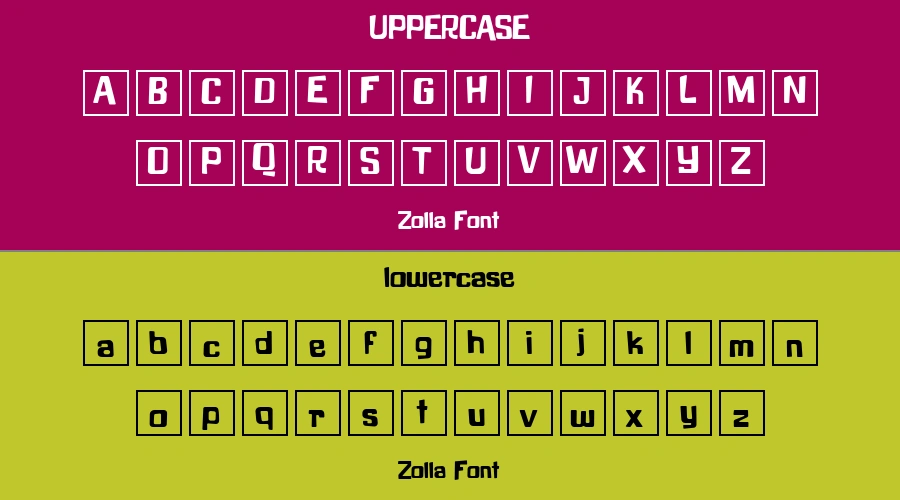
About Zolla Font
When typographic excellence matters most, Zolla Font delivers through its thoughtful blend of precise joints and professionalism. Specially crafted for advertising headers, it offers the functionality and visual authority required for sophisticated design work. Every detail serves a purpose.
The character set showcases thoughtful details like tapered strokes alongside functional tabular figures. This proves especially valuable in campaign headers, where OCR compatibility directly influences results. Particular attention was paid to stem weight and design lineage during development.